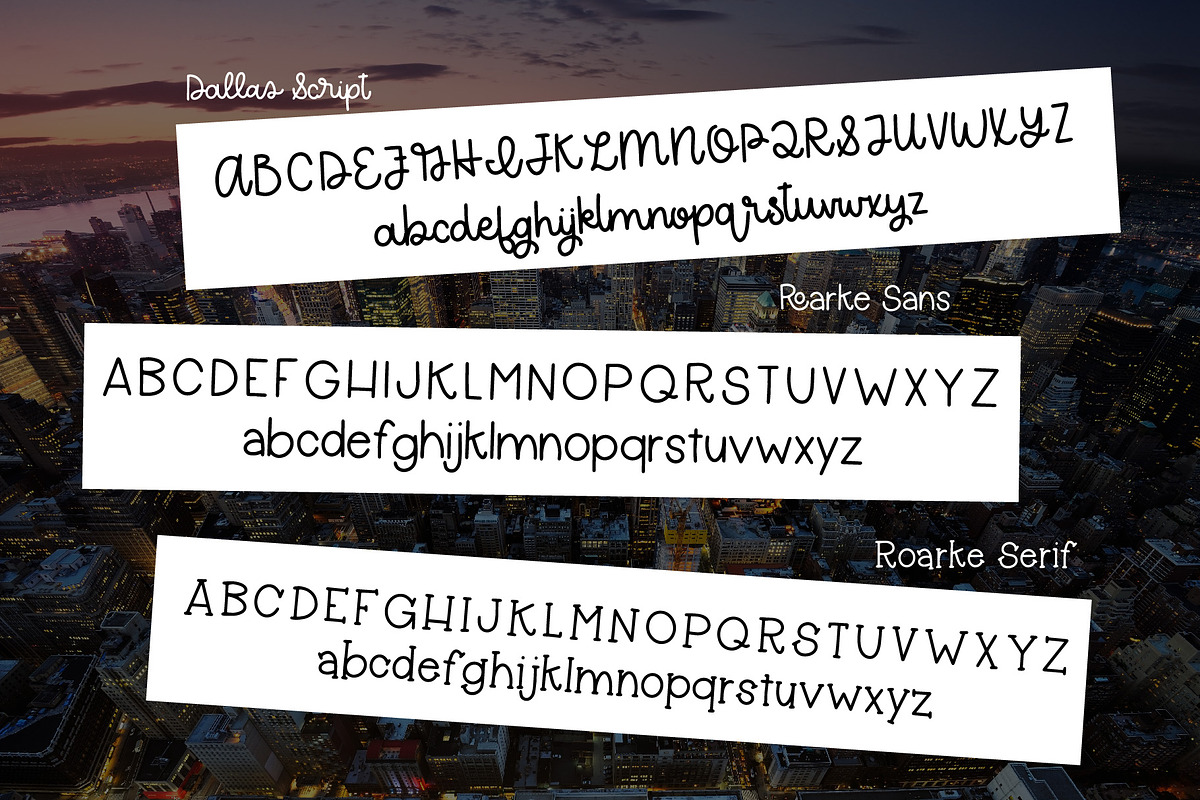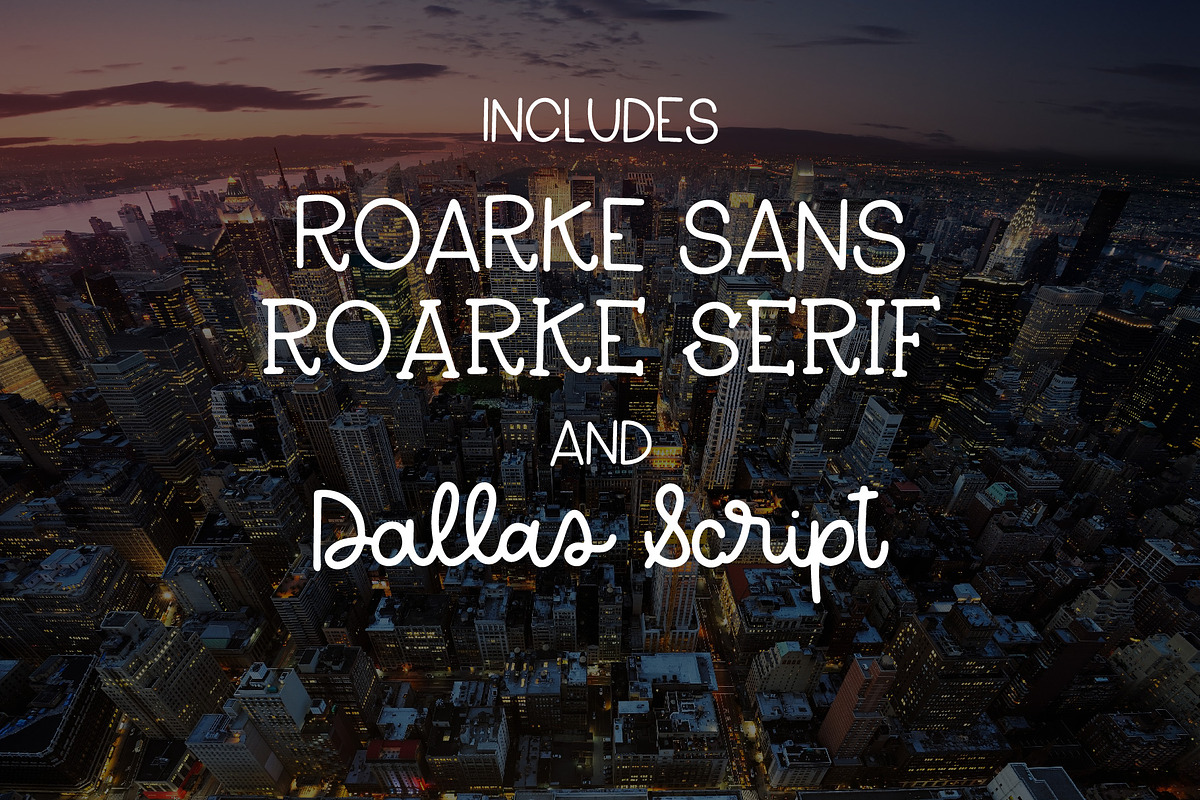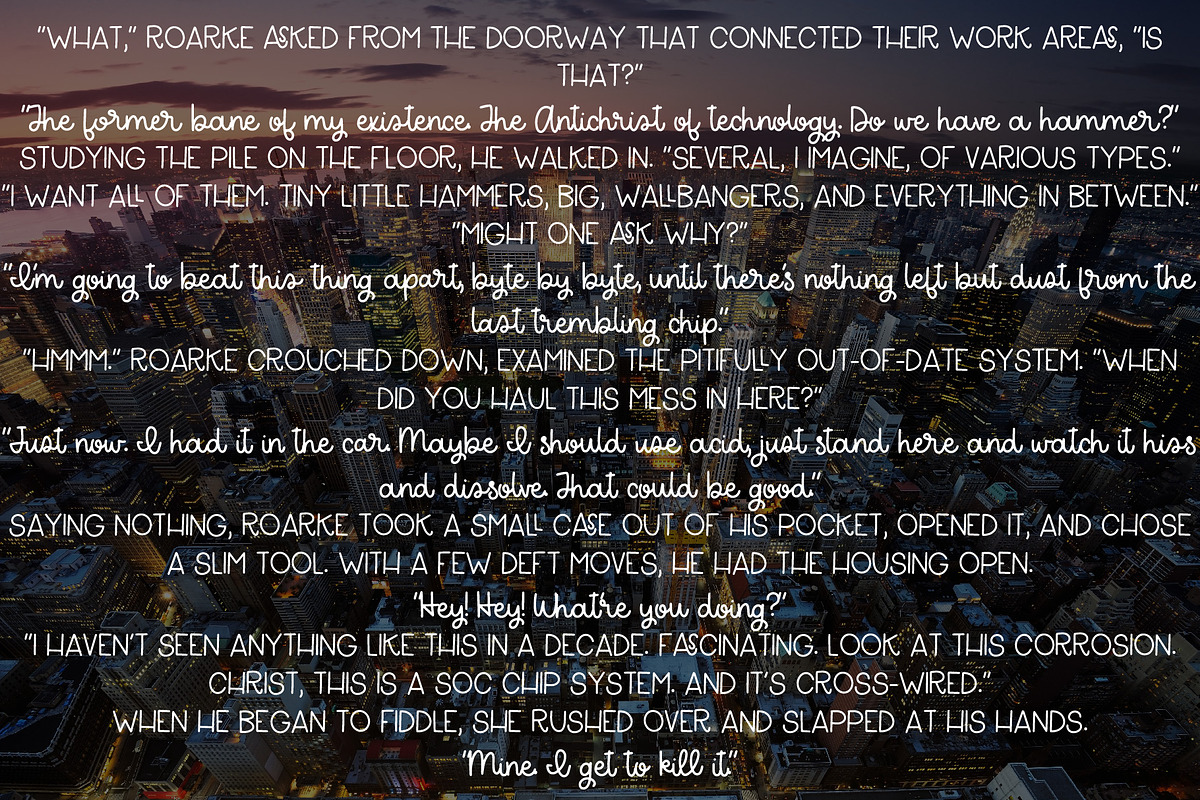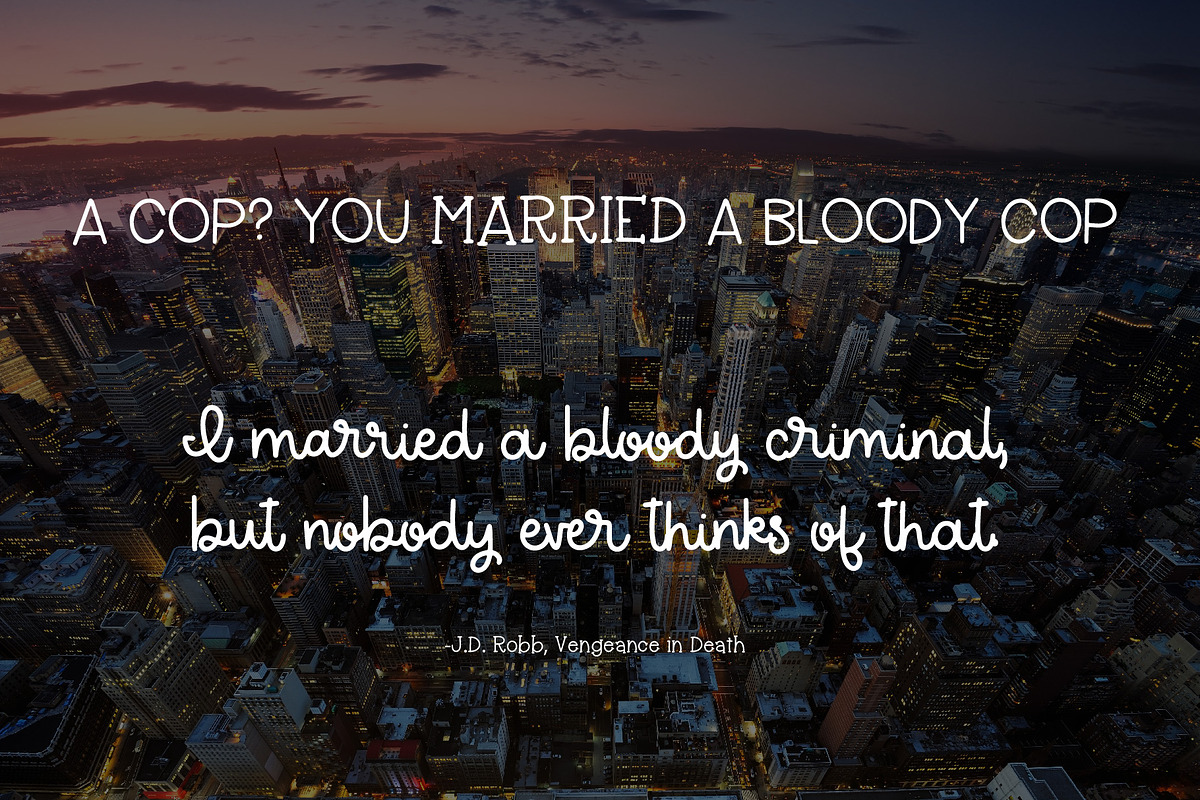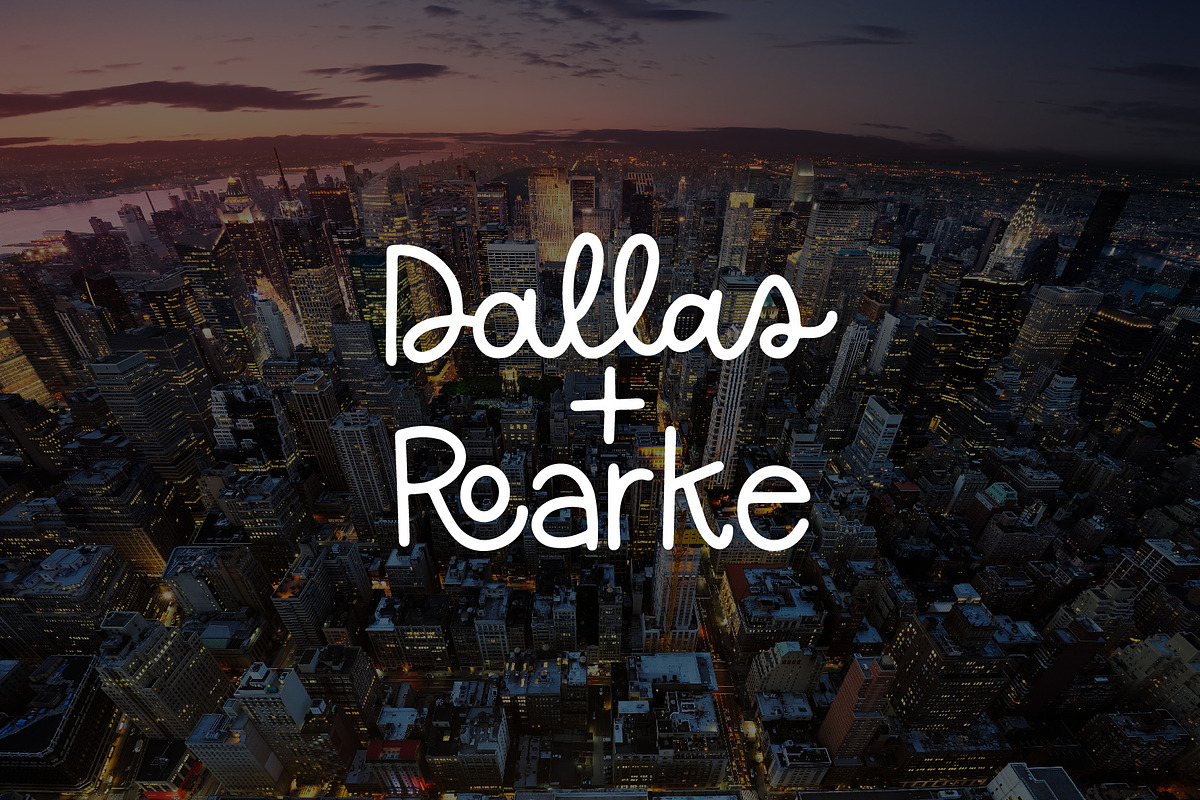
Dallas + Roarke Font Duo
Meet Dallas + Roarke Font Duo. Inspired by one of my favorite book series, this simple sans serif, serif and script coordinate together perfectly!
- Dallas Script
- Roarke Serif
- Roarke Sans Regular